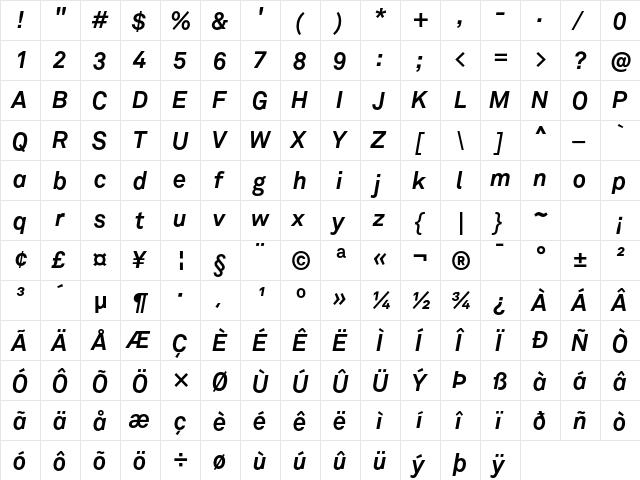
Akkurat Bold Italic
| Foundry | Laurenz Brunner |
| Designer | Laurenz Brunner |
Design Context for Akkurat Typeface
Akkurat is a composed and adaptable typeface that performs quietly and consistently across a wide range of design contexts. Its italic angle brings a sense of urgency and motion to the letterforms. Its bold stroke weight gives it real presence on the page.
Pro Tip: Try Akkurat for annotation and caption copy alongside an upright companion — the contrast in angle creates a dynamic but ordered typographic system.